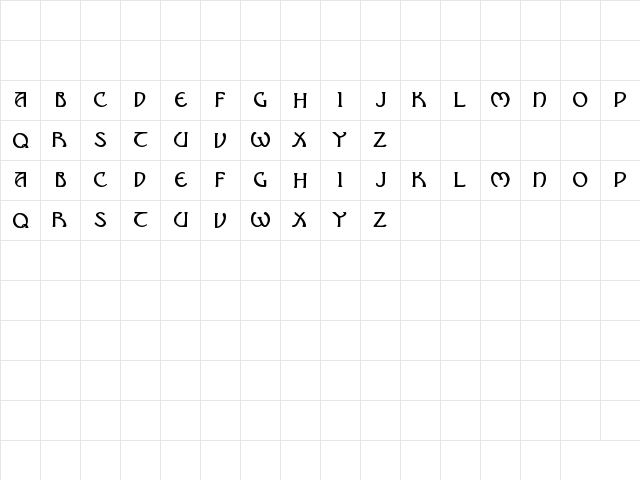
Nouveau Uncial Caps Regular
| Designer | James Greenwood |
Design Context for Nouveau Uncial Caps Typeface
Nouveau Uncial Caps is a composed and adaptable typeface that performs quietly and consistently across a wide range of design contexts.
Pro Tip: Use Nouveau Uncial Caps in both headline and body roles to test its range before committing to a single application.